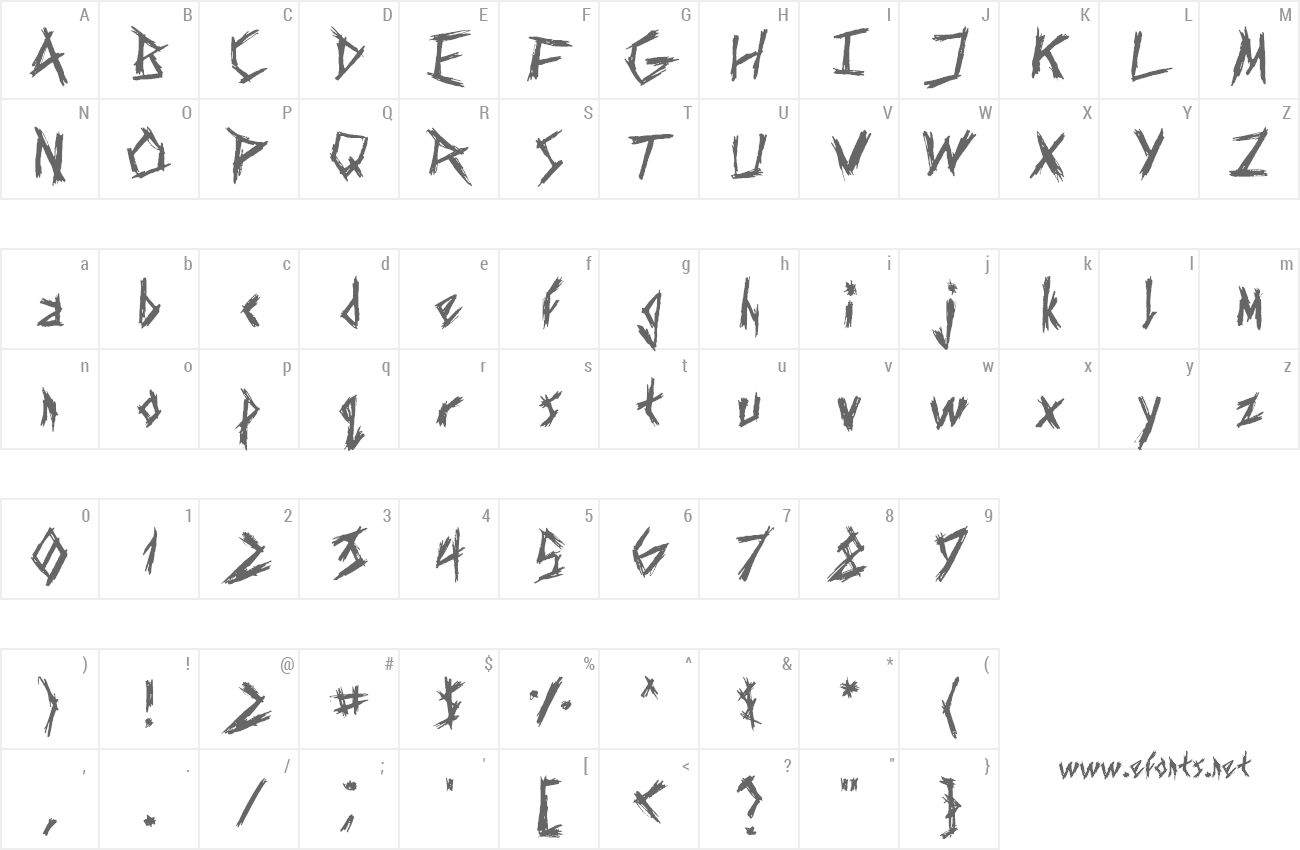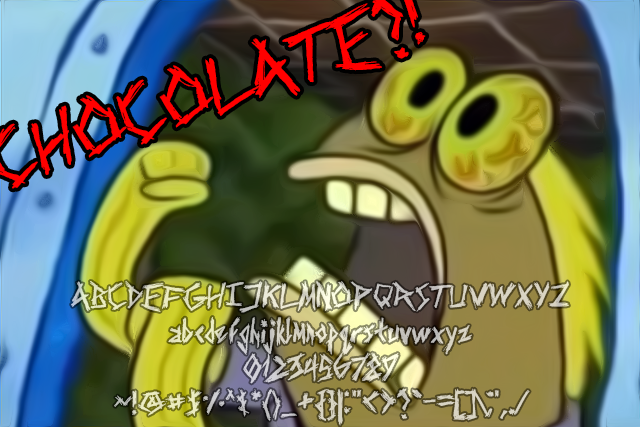
Preview and download Screaming Chocolate Guy Font. Created by Jay Nilmaro in Fancy Horror styles with Free for personal use license.
Loosely based on the character in the most famous scene of Spongebob episode 52, season 3. NB: this font is free for personal use. However, if you are planning to use this font commercially, please note that I do not hand out commercial licenses. Enjoy this font! |